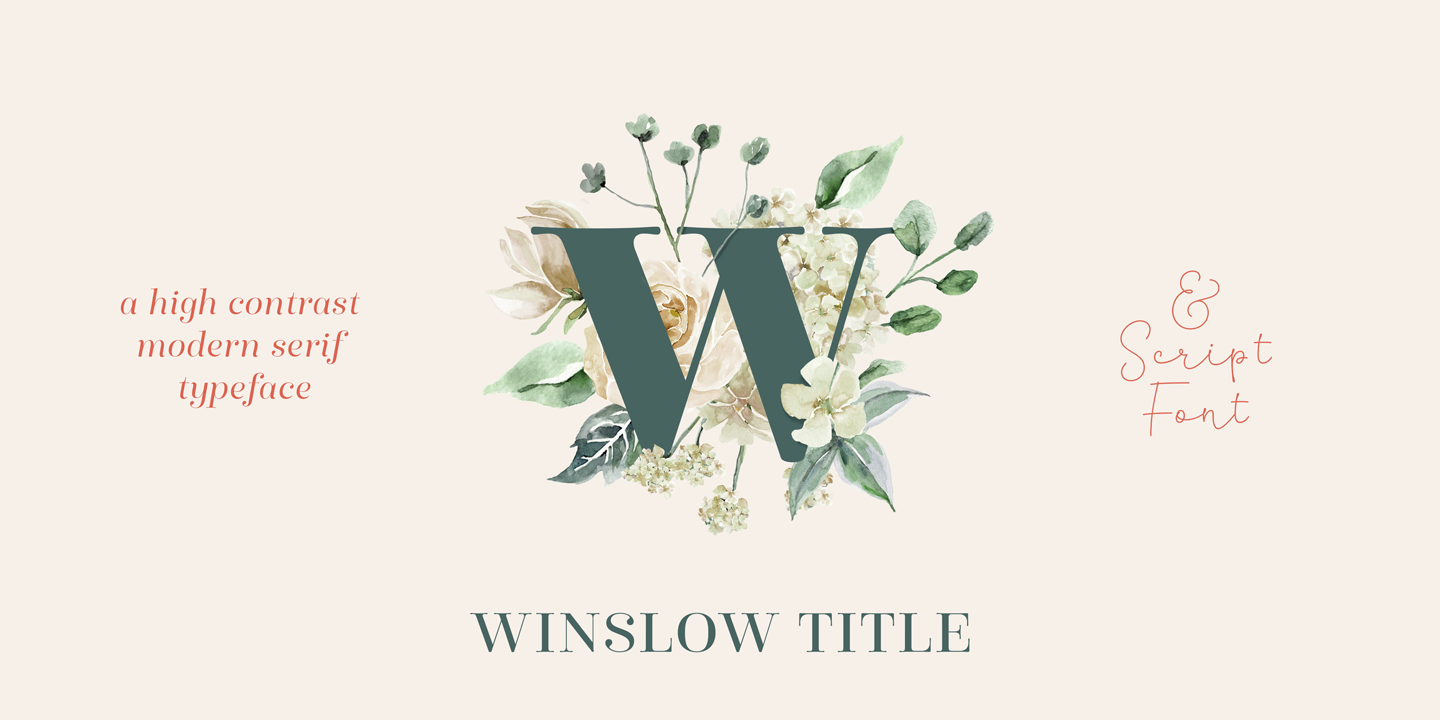
Winslow Title Font Free Download is a bold and sophisticated serif typeface designed to make a strong impression in headlines and titles. Please note: you must purchase a license for commercial use — this font is available as a free download for personal and testing purposes only.
Perfect for editorial design, branding, posters, book covers, and packaging, Winslow Title Font Free Download adds a touch of classic elegance combined with modern readability to your creative projects.
What makes this font exciting is its strong serifs, clean lines, and balanced proportions that provide both impact and clarity, making your titles stand out with authority.
The Winslow Title font family includes Regular, Italic, Bold, and Bold Italic styles, offering versatility to craft compelling typographic hierarchies.